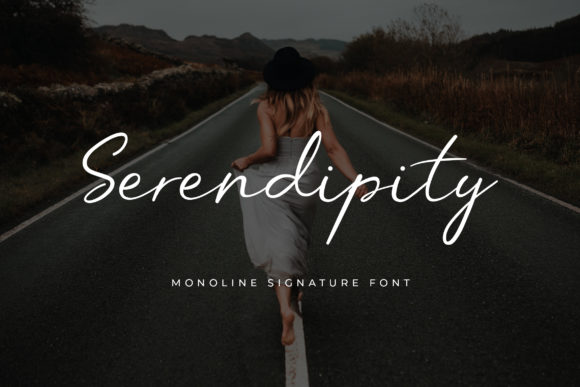
Journey into the realm of enchanting typography with Serendipity Font, a captivating script font family that embodies grace and fluidity. Its meticulously crafted characters dance across the page, leaving a trail of elegance and sophistication in their wake. As a creation of uicreativenet, Serendipity Font is a testament to the power of creative expression.
Serendipity Font's delicate strokes and flowing curves evoke a sense of timeless beauty. Its well-balanced characters exude harmony and poise, making it a versatile choice for a wide spectrum of design projects. Whether you seek to add a touch of charm to your wedding invitations, breathe life into your branding, or infuse your social media posts with an air of sophistication, Serendipity Font is your ideal companion.
Step into a world where words come alive, where every letter tells a story. Serendipity Font's elegant swashes and playful ligatures add a touch of whimsy and intrigue to your designs. Let your creativity soar as you explore the endless possibilities that await you with this remarkable font family.
With Serendipity Font, you hold the key to unlocking a world of creative expression. Its versatility knows no bounds, allowing you to craft designs that speak to the heart and capture the imagination. From heartfelt love letters to awe-inspiring marketing campaigns, Serendipity Font is your trusted ally in the pursuit of visual excellence.
Embrace the beauty of the written word with Serendipity Font. Its delicate charm and timeless appeal will transform your designs into masterpieces that resonate with grace and elegance. Discover the magic that awaits within the curves and flourishes of this extraordinary font family.